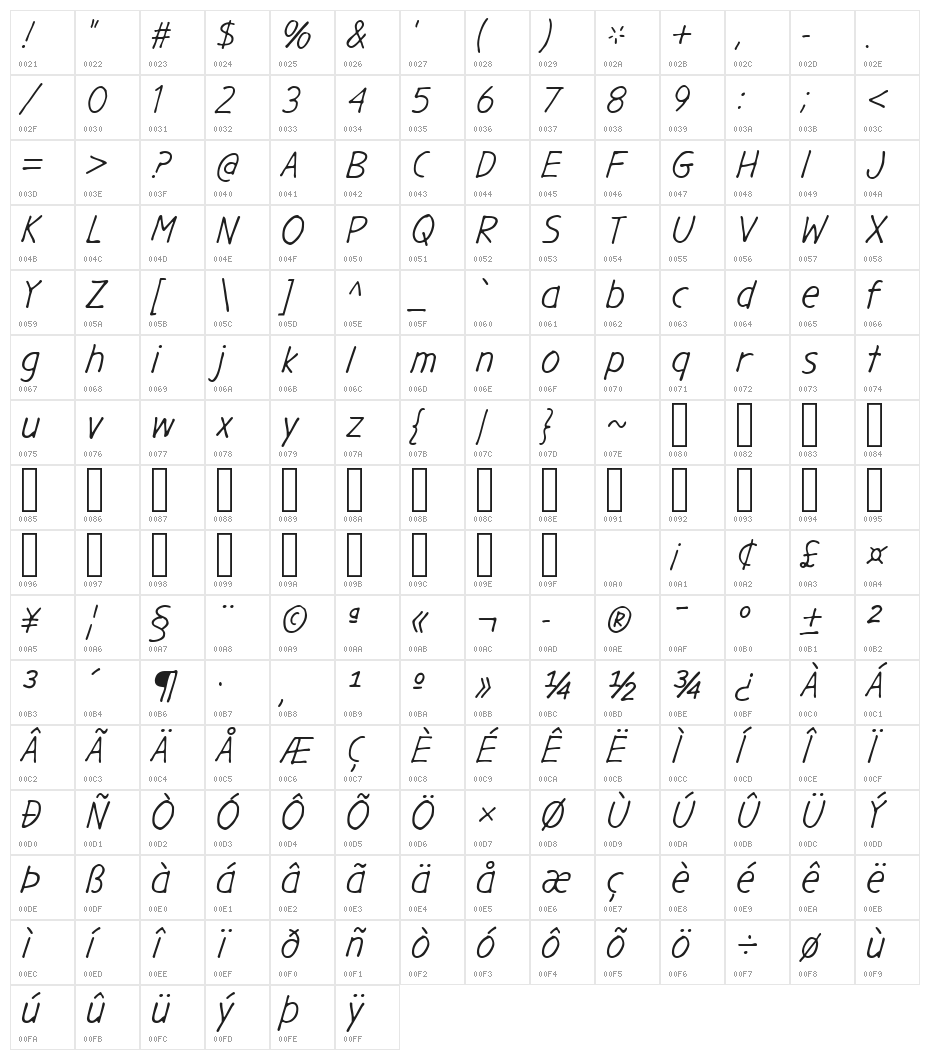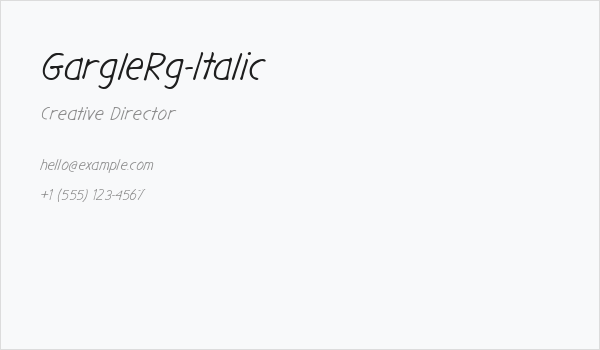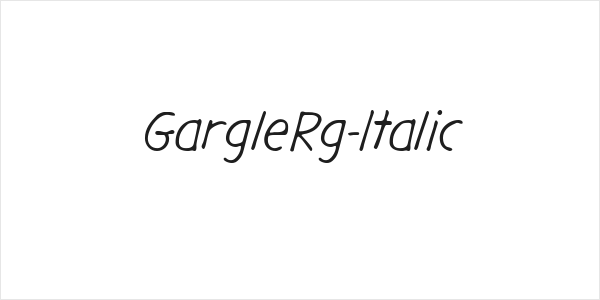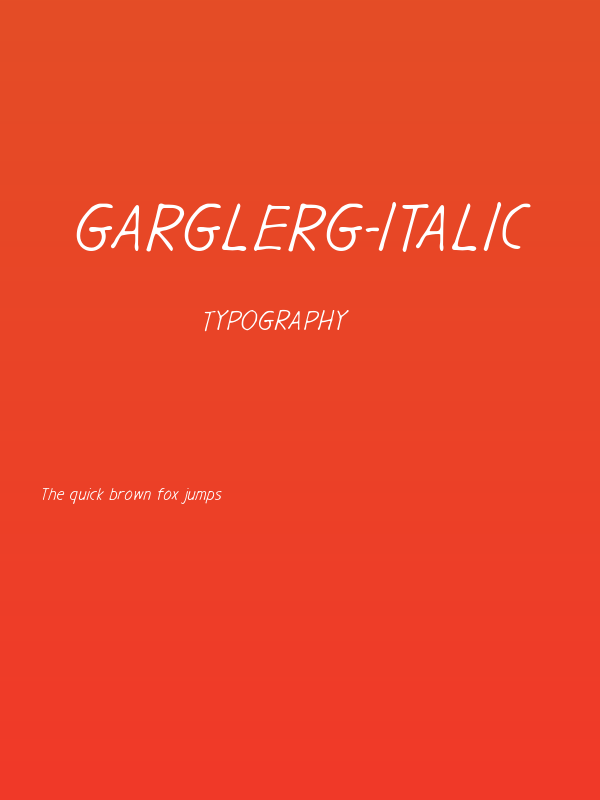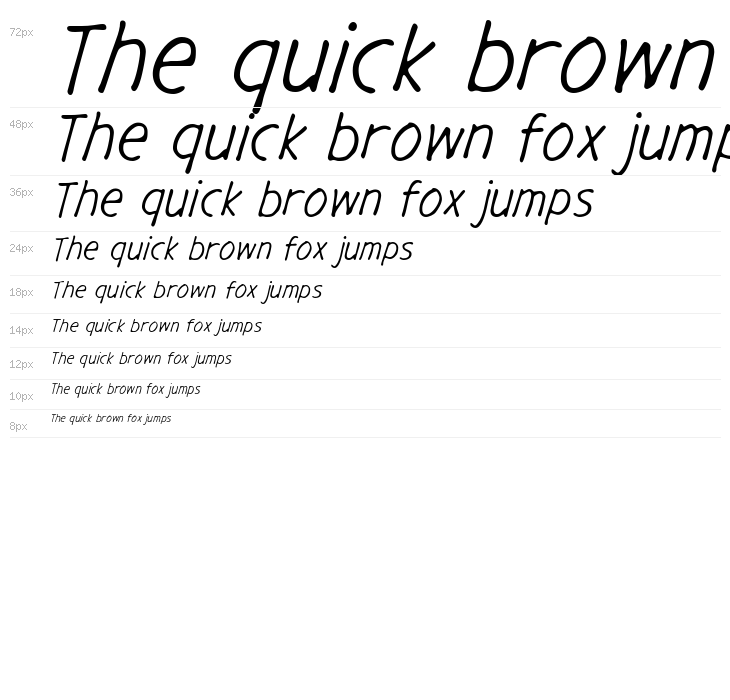
GargleRg-Italic Font
GargleRg-Italic Description
This font features a casual and handwritten style with a slight slant, giving it an informal and approachable appearance. The characters are rounded and smooth, with a consistent stroke width that maintains readability. The uppercase letters are slightly taller than the lowercase, and the numbers are clear and distinct. Special characters are well-integrated, maintaining the font's cohesive look. This style is suitable for projects that require a personal touch or a relaxed vibe.
| Proposed Projects | Ideal for greeting cards, personal notes, informal invitations, and creative projects that benefit from a personal touch. |